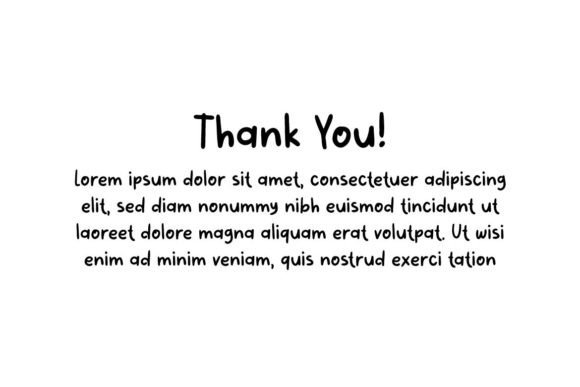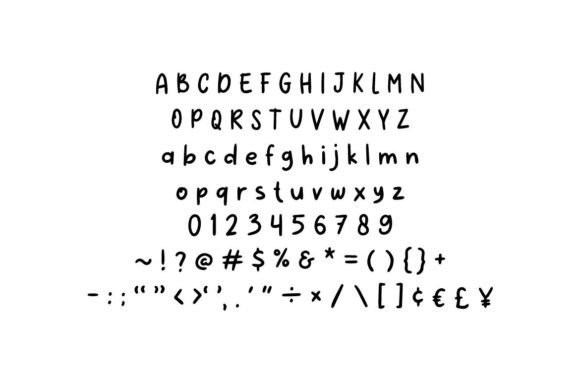
Introduction to Ricebowl Font
That’s where the Ricebowl Font comes in – a unique handwritten font that’s sure to add a dash of fun and modern flair to your designs. Whether you’re creating a restaurant menu, a book cover, or a social media post, this versatile font is the perfect design resource to have in your toolkit.
Key Features of Ricebowl Font
- Unique Hand-Drawn Design: Ricebowl Font features a distinctive hand-drawn design that adds a personal touch to any creative project.
- Wide Character Set: The font includes a wide range of characters, including uppercase and lowercase letters, numbers, and punctuation marks.
- Perfect for Creative Projects: Ricebowl Font is ideal for creative projects that require a unique and eye-catching typography, such as illustrations, graphics, and branding materials.
Honest Review: Ricebowl Font
As a designer, I’m always on the lookout for high-quality fonts to enhance my creative projects. The Ricebowl Font caught my attention, and I decided to give it a try. Here’s my honest review.
- The Ricebowl Font has a unique, hand-drawn style that adds a touch of personality to any design.
- It’s a versatile font, suitable for a wide range of creative projects, from headings to body text.
- The Ricebowl Font may not be suitable for formal or corporate designs, as its hand-drawn style can come across as unprofessional.
- The font lacks a transparent background option, which can make it difficult to use on complex backgrounds.
Overall, I’m impressed with the Ricebowl Font’s unique style and versatility. While it may have some limitations, it’s a great addition to any designer’s toolkit. If you’re looking for a free, high-quality font for your creative project, the Ricebowl Font is definitely worth considering.
Tips for Getting the Most Out of Ricebowl Font
For high-quality results, use Ricebowl Font on a transparent background to achieve a clean and minimalist design. You can also use the font in combination with other design elements to create a unique and creative project.
Ricebowl Font is ideal for use in a variety of creative projects, including blog headers, social media graphics, and branding materials. The font’s high-quality design and transparent background make it perfect for use in digital design projects.